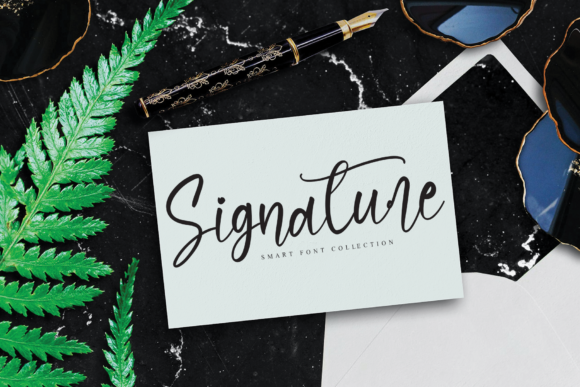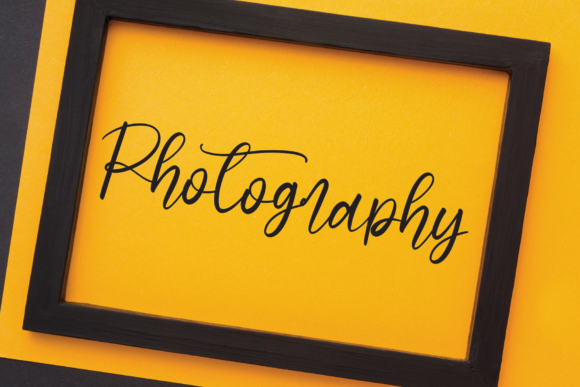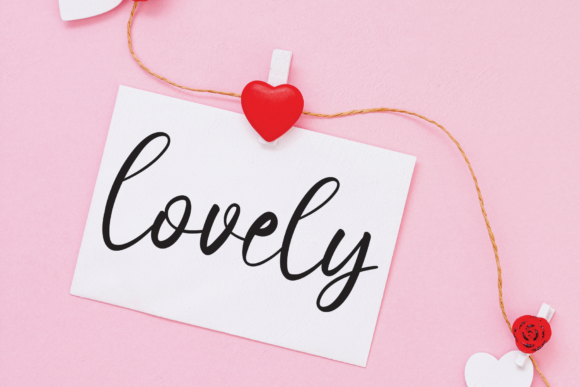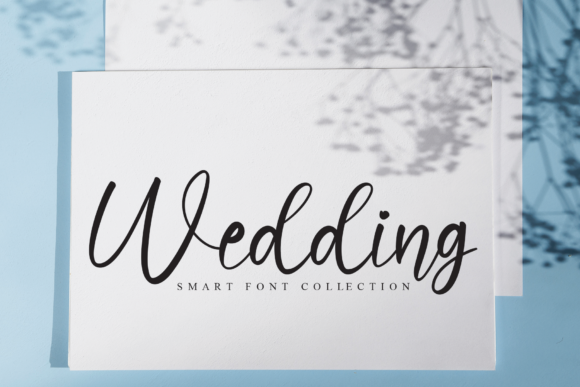
Introduction to Amersfoort Font
You’ve spent hours pouring over design concepts, finally landing on the perfect idea for your creative project. The excitement builds as you begin to bring it to life, but then you’re stuck – the font just isn’t quite right. That’s where the Amersfoort Font comes in, a stylish and versatile script font designed to elevate your designs and leave a lasting impression.
With its delicate, handcrafted feel, the Amersfoort Font is a valuable asset for any designer looking to add a touch of sophistication to their work. Whether you’re working on a personal project or a high-profile design brief, this font has the potential to take your creations to the next level. And the best part? It’s available as a free download, making it an essential design resource for any creative professional.
What sets the Amersfoort Font apart from other design elements is its high quality and attention to detail – from its transparent background to its intricate flourishes, every aspect of this font has been carefully crafted to provide a seamless and professional finish.
Key Features of Amersfoort Font
- High-quality design resource ideal for creative projects, offering a unique and stylish aesthetic.
- Features a clean and modern design, making it suitable for various applications, from print to digital media.
Honest Review: Amersfoort Font
I recently stumbled upon the Amersfoort Font and I’m excited to share my thoughts on this free design resource. As a designer, I’m always on the lookout for high-quality fonts that can elevate my creative projects.
- ✨ Beautifully crafted letterforms that are perfect for modern designs.
- ✨ Great for designs that require a transparent background, as it looks stunning when overlaid on images.
However, I do have a few limitations to mention:
- ⚠️ Limited character set, which may not be suitable for complex projects.
- ⚠️ Not ideal for designs that require a bold, attention-grabbing font.
Overall, I’m impressed with the Amersfoort Font. It’s a solid choice for designers who need a clean, elegant font for their creative projects. With its high quality and free download, it’s definitely worth checking out.
The Amersfoort Font is suitable for a variety of creative projects, including:
Brochures, flyers, and posters
Business cards and letterheads
Websites and digital interfaces
Alternatives to Amersfoort Font
Pacifico is a beautiful, high-quality font perfect for creative projects that require a touch of elegance. It features a transparent background, making it ideal for use on a variety of design resources. When to use: Wedding invitations, branding materials, and marketing materials.
Comparison to Amersfoort Font: Pacifico has a more refined and sophisticated look compared to Amersfoort Font, making it suitable for more formal designs.
Great Vibes is a stylish and modern font that works well for creative projects that need a high-quality design resource. It has a transparent background, making it versatile for use on various design elements. When to use: Brochures, posters, and magazine covers.
Comparison to Amersfoort Font: Great Vibes has a more playful and energetic feel compared to Amersfoort Font, making it suitable for more vibrant and dynamic designs.
Alex Brush is a elegant and sophisticated font ideal for creative projects that require a touch of luxury. It features a transparent background, making it perfect for use on various design resources. When to use: Luxury branding materials, high-end marketing materials, and elegant invitations.